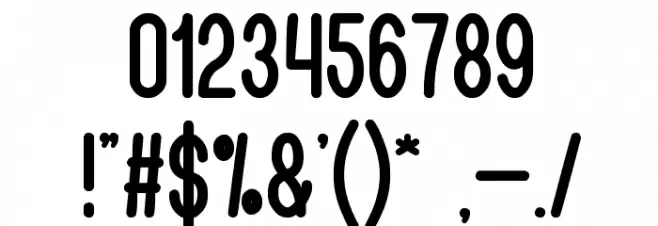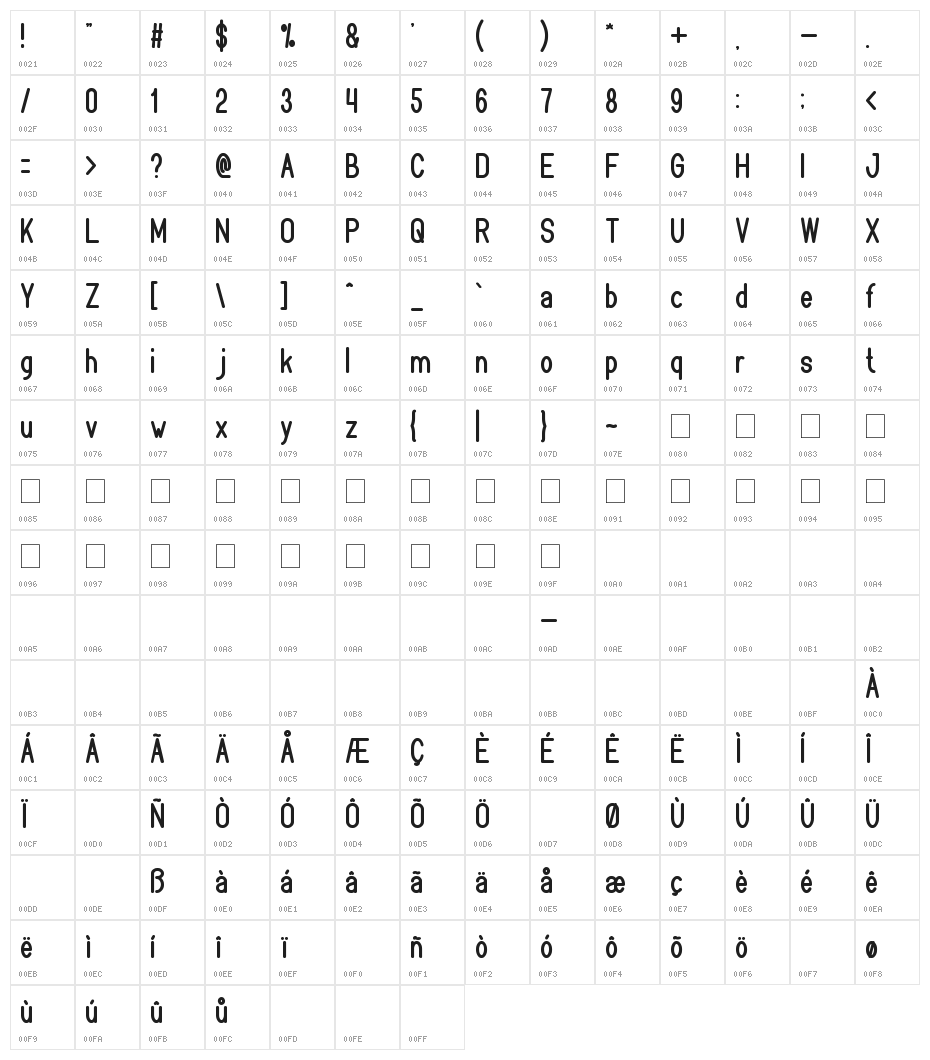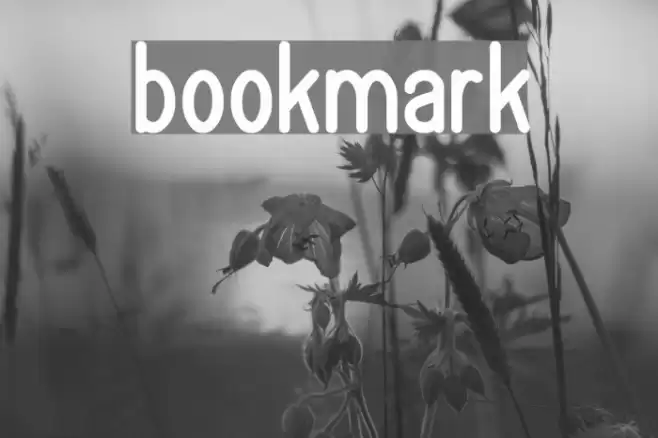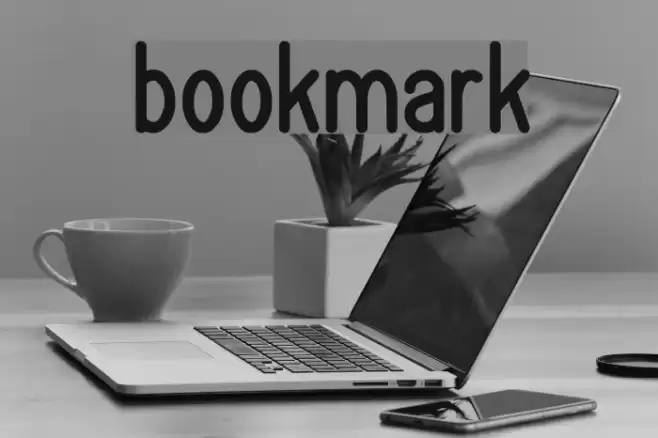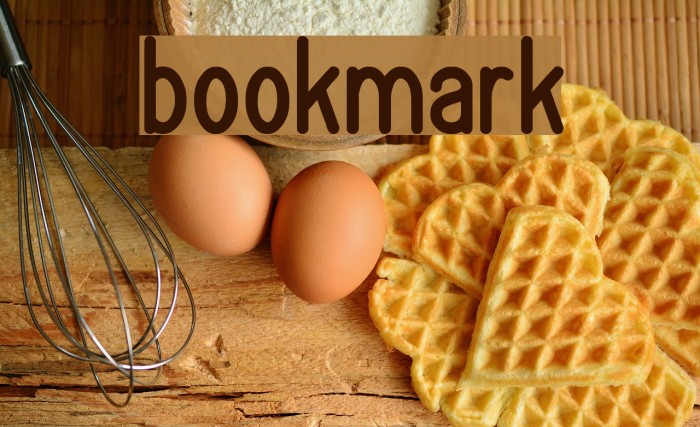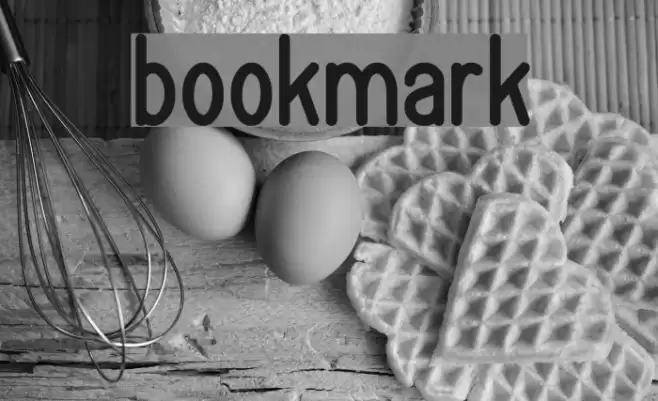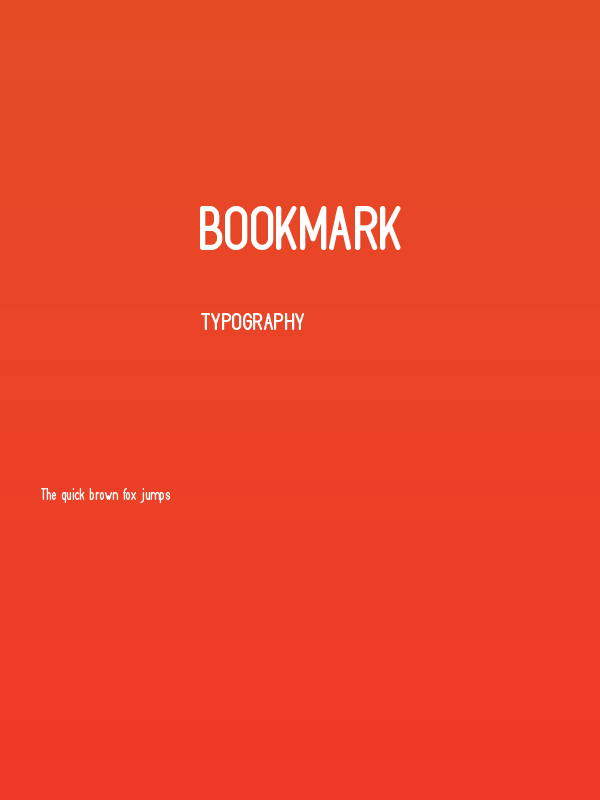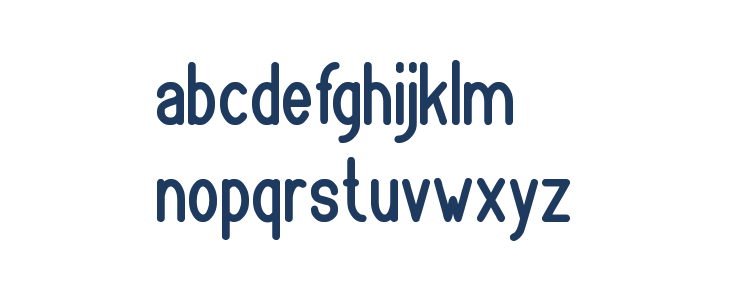
bookmark Font
bookmark Description
This font features a clean and modern sans-serif style with rounded edges, giving it a friendly and approachable appearance. The characters are evenly spaced, providing a balanced and harmonious look. The uppercase and lowercase letters are well-proportioned, and the numerals are clear and easy to read. Special characters are included, maintaining the same rounded and smooth aesthetic. This font is versatile, suitable for various design projects that require a contemporary and legible typeface.
| Proposed Projects | Ideal for branding, advertising, web design, and user interfaces where a modern and friendly look is desired. |